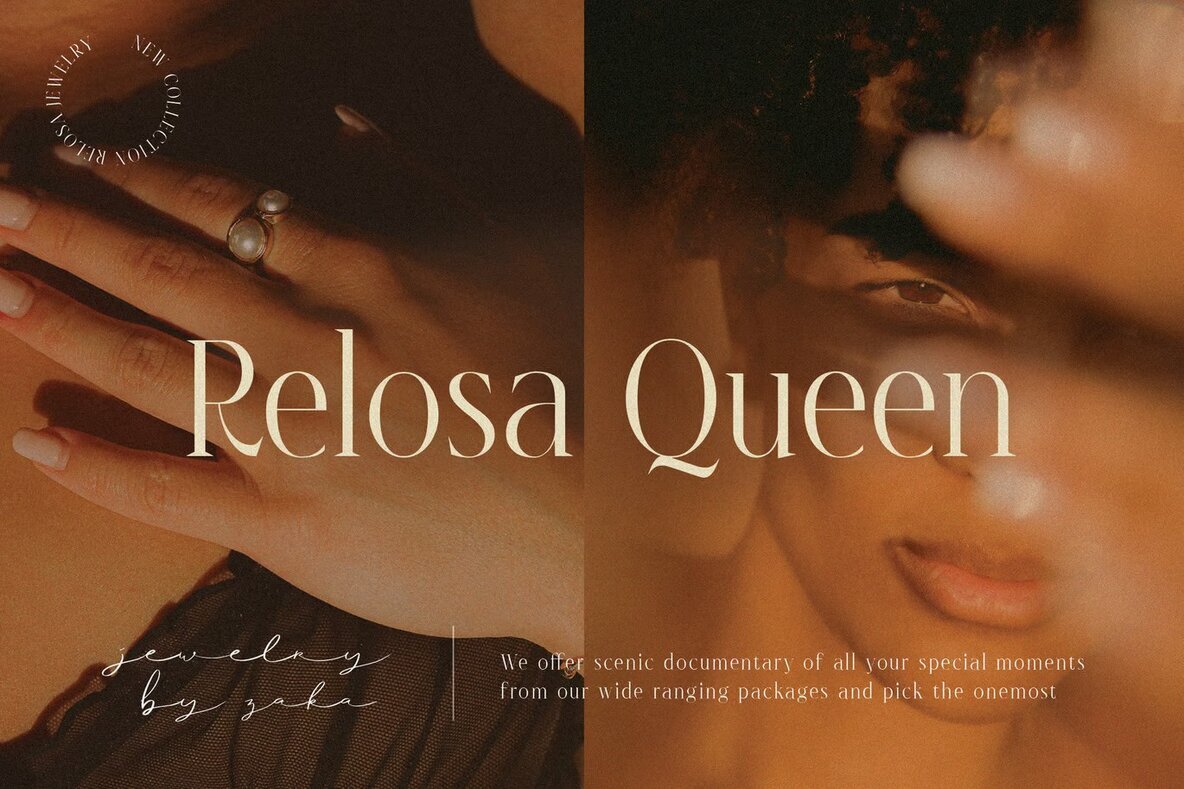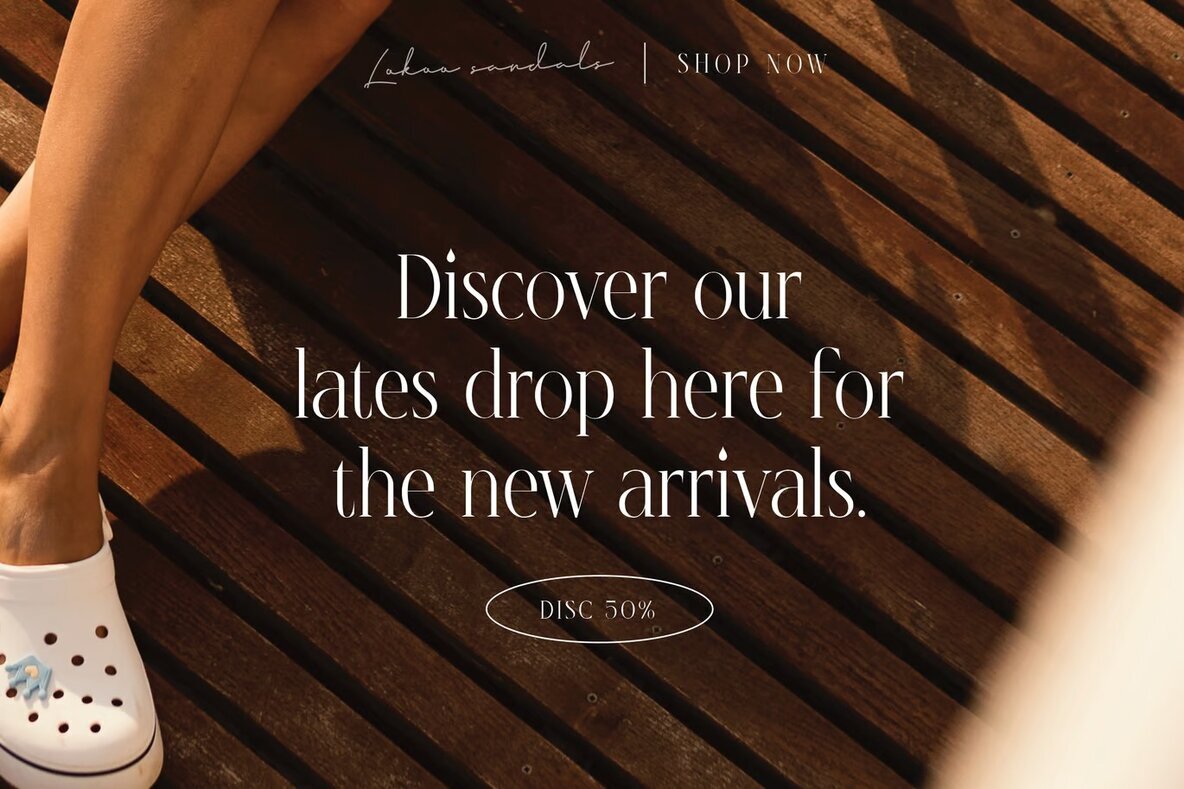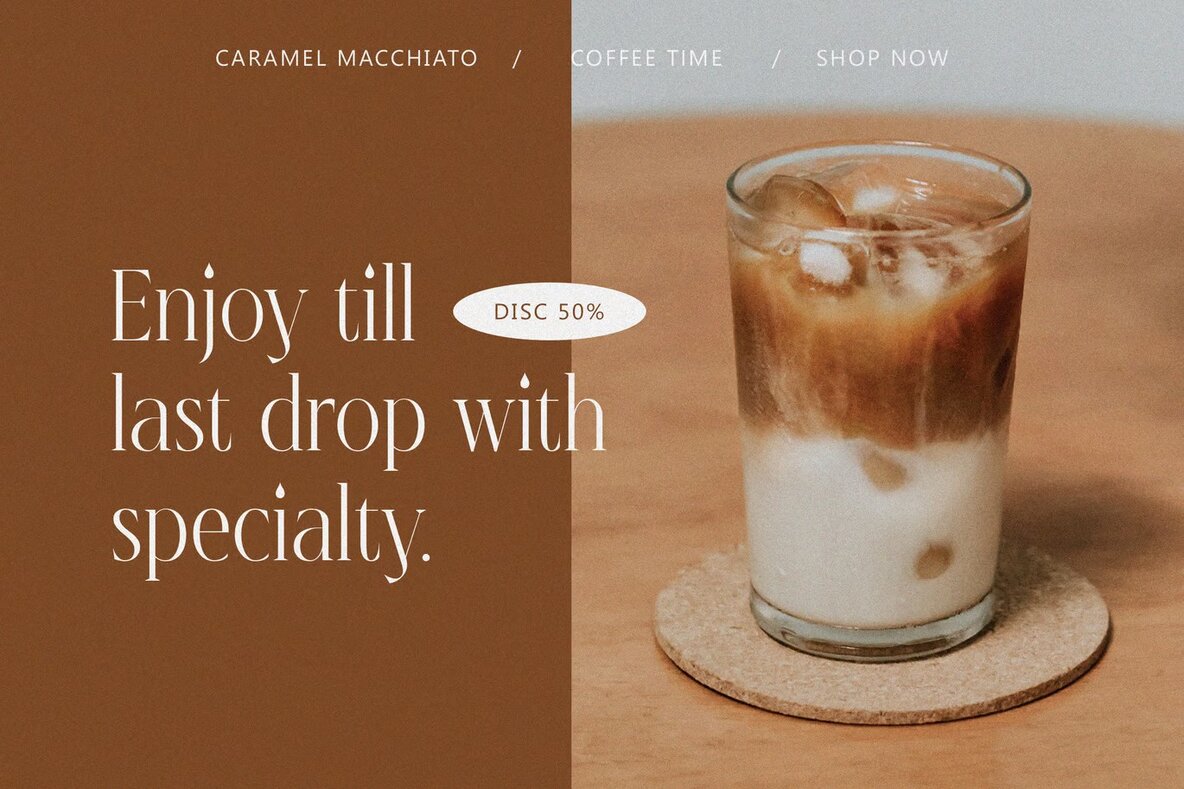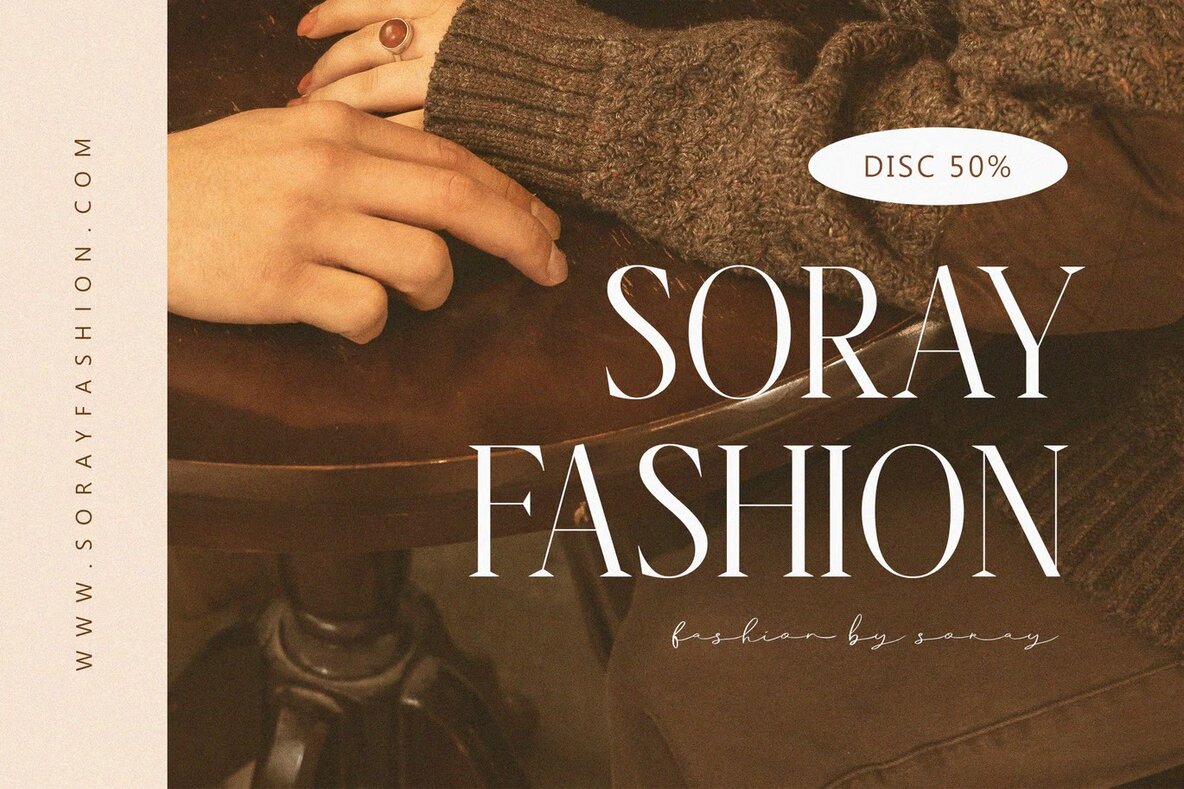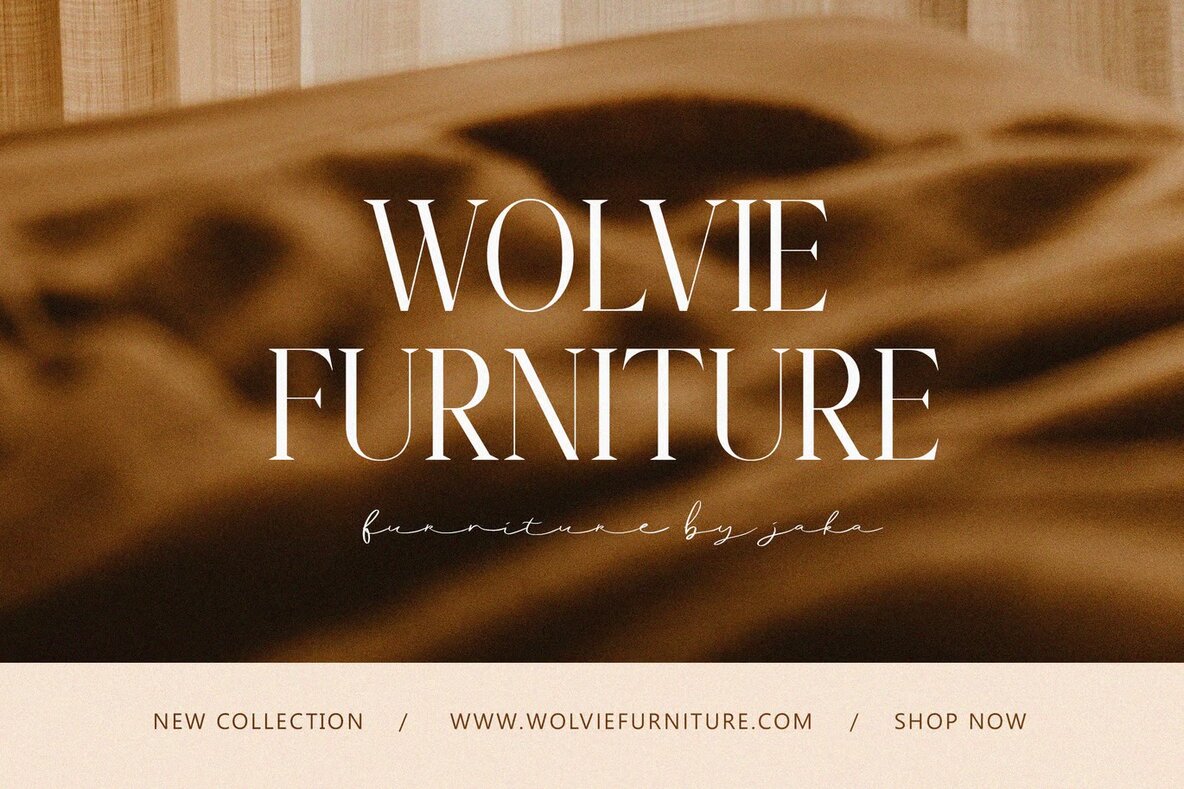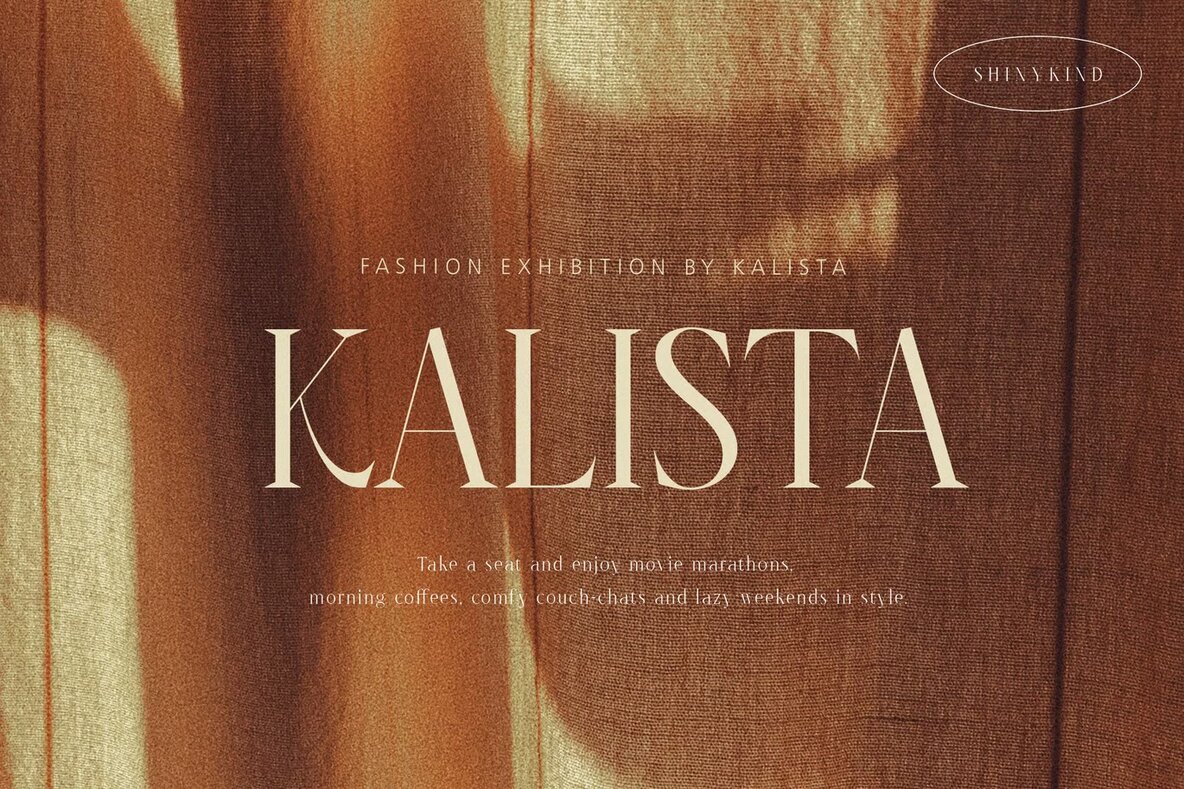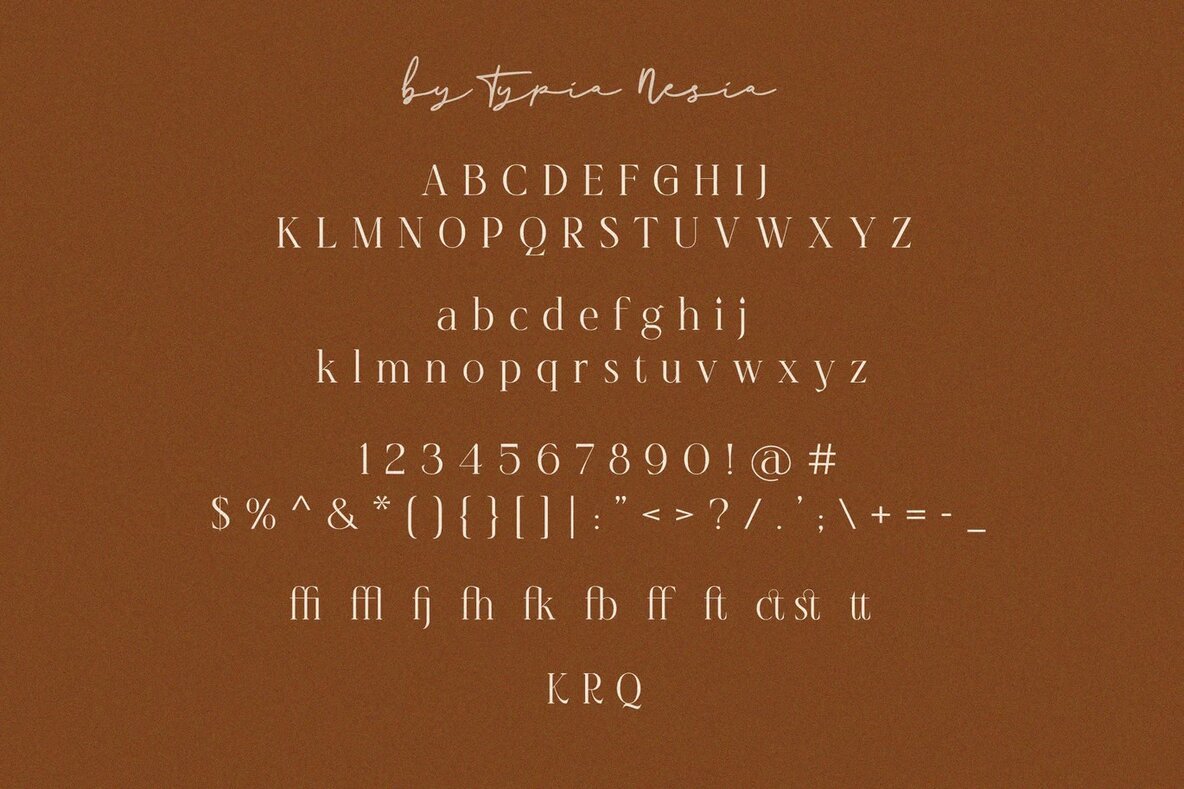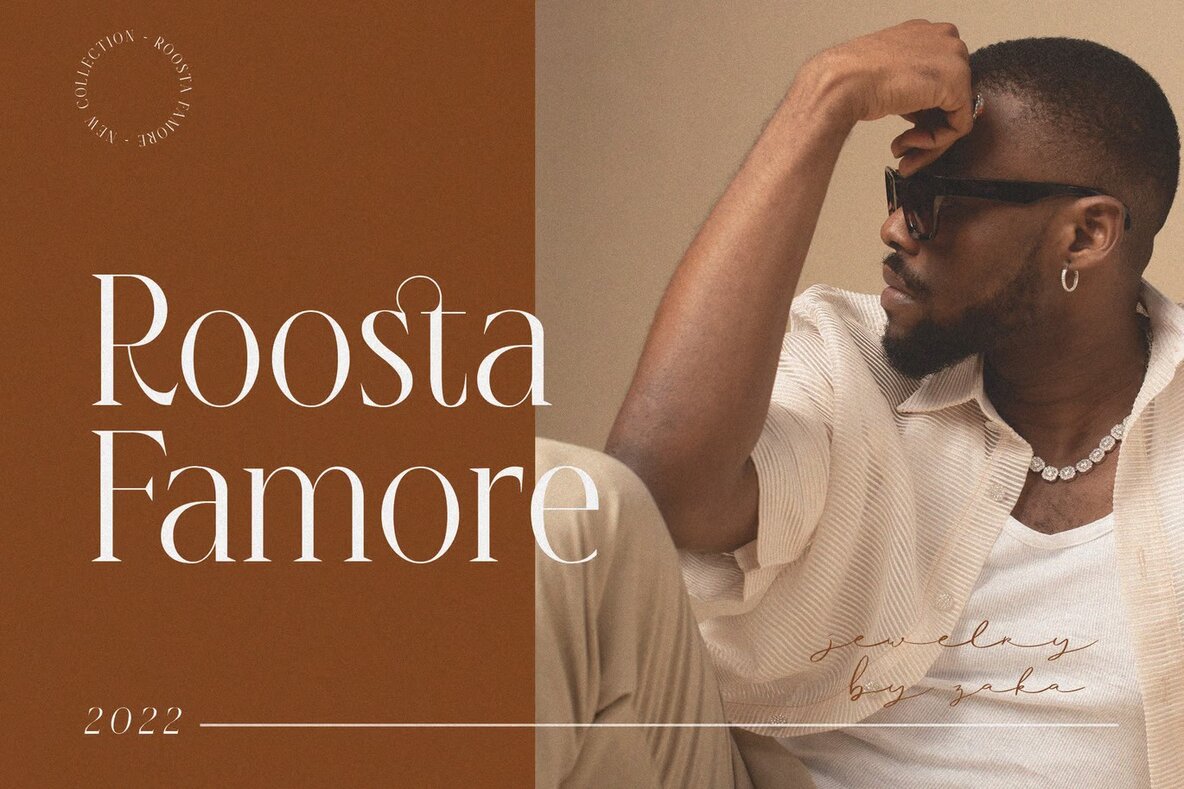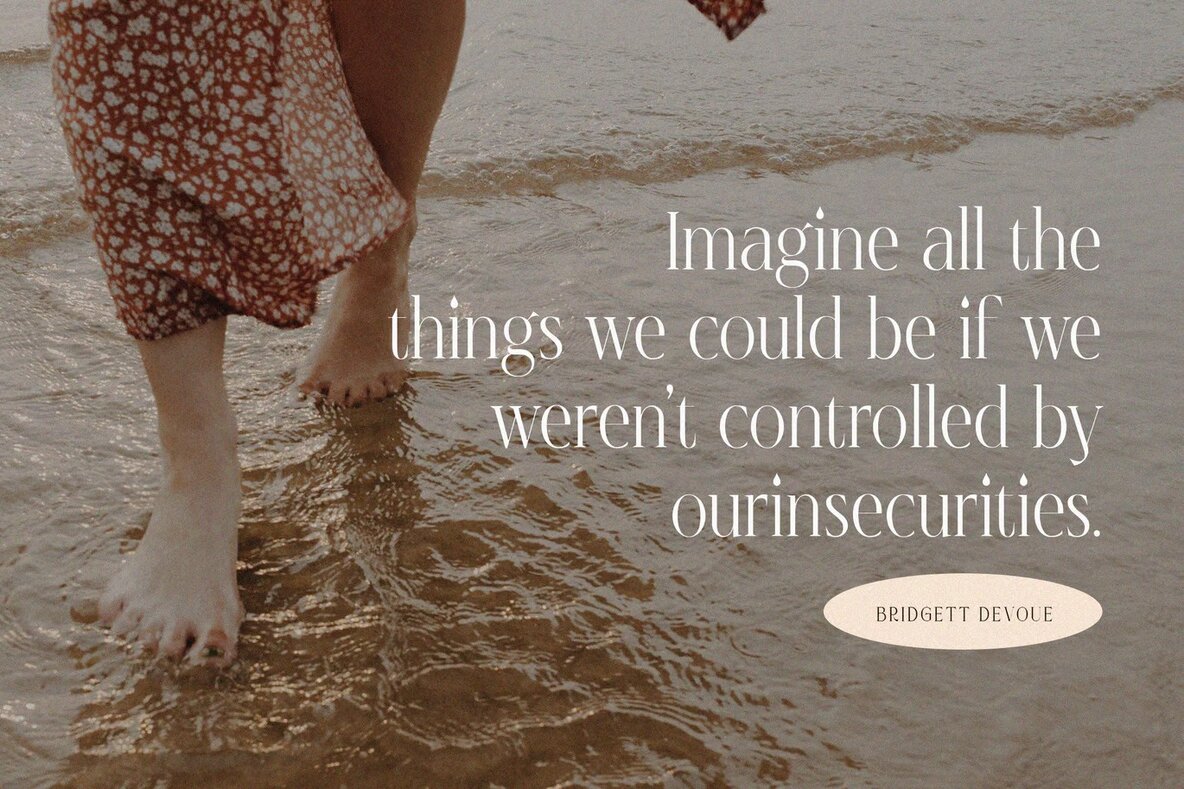
Shinykind Font
Shinykind Regular
Introducing Shinykind – an elegant serif font designed to bring a touch of beauty and sophistication to your creative projects. This expressive typeface includes various alternates and ligatures, allowing you to craft stunning typography designs with ease. Shinykind is the ideal choice for luxury logos, refined branding projects, and classy editorial layouts.
Whether you're working on a woman's magazine, a cosmetic brand, fashion promotions, or branding for an art gallery or boutique, Shinykind fits seamlessly into your vision. It's also perfect for modern advertising, stylish stationery, engaging blog designs, and elegant invitations. Bring your artistic quotes, home decor, book covers, and special event materials to life with this versatile serif font. Explore the endless design possibilities with Shinykind.